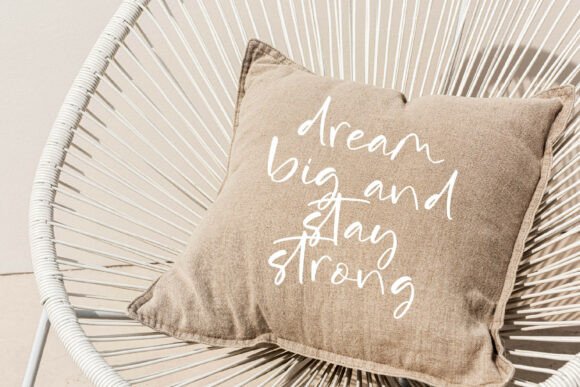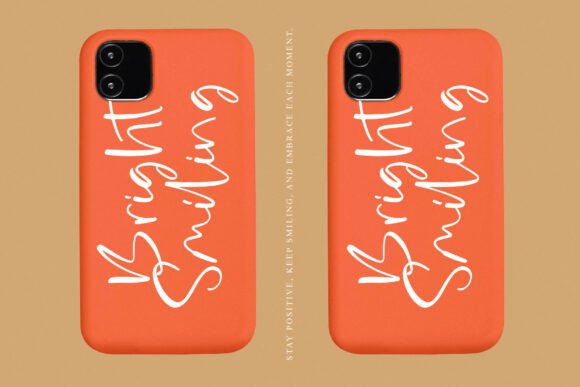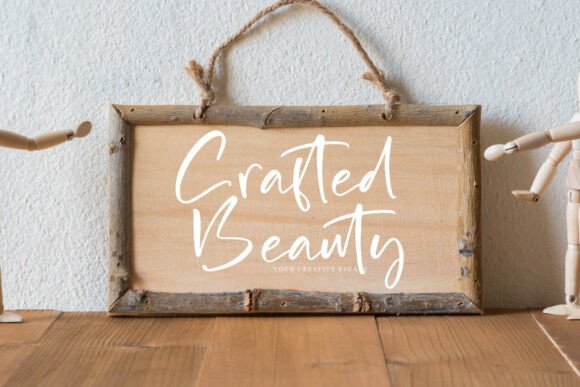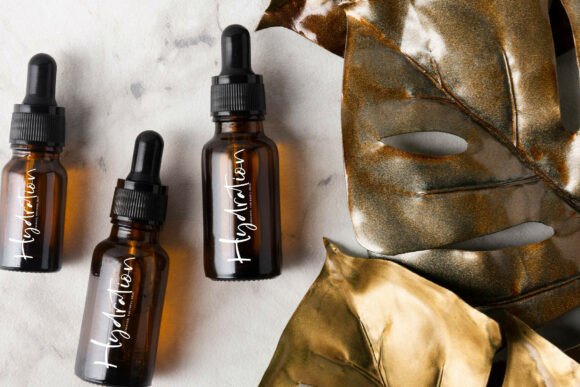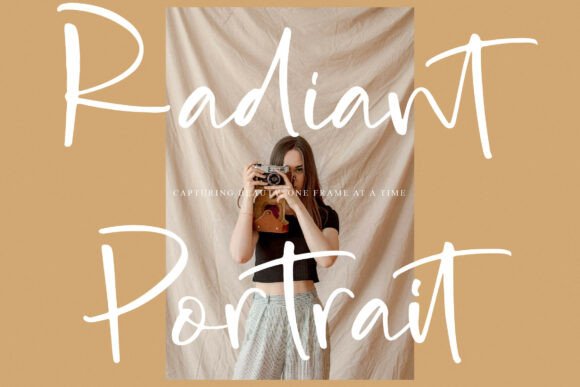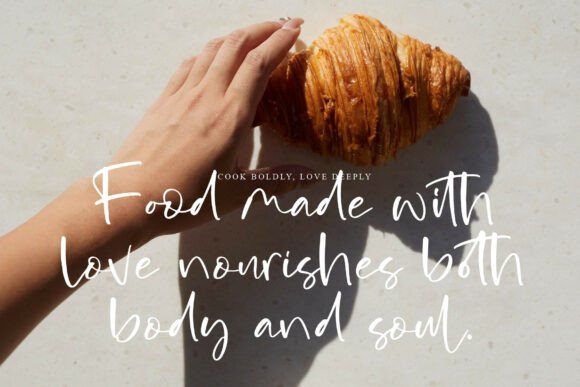
Introduction to Santuary Portrait Font Font
Fonts play a crucial role in design, and the Santuary Portrait Font font is a typeface that brings both character and versatility to any project. Whether you’re working on a branding project, a website, or a print design, the Santuary Portrait Font font offers a unique style that can elevate your work.
Sanctuary Portrait features clean, relaxed strokes with just the right amount of personality.
With two styles and multilingual support, this font is perfect for wellness brands, product packaging, social posts, and modern branding with a natural touch .
Key Features of Santuary Portrait Font Font
Why Choose Santuary Portrait Font Font?
The Santuary Portrait Font font is more than just a typeface – it’s a design tool that helps you communicate your message with style and clarity. Its unique character set and versatile design make it suitable for a wide range of applications, from elegant invitations to bold headlines.
With its carefully crafted letterforms and balanced proportions, the Santuary Portrait Font font ensures readability and visual appeal across all mediums.
What makes Santuary Portrait Font font special?
The Santuary Portrait Font font stands out with its unique design, exceptional readability, and versatility across various design applications.